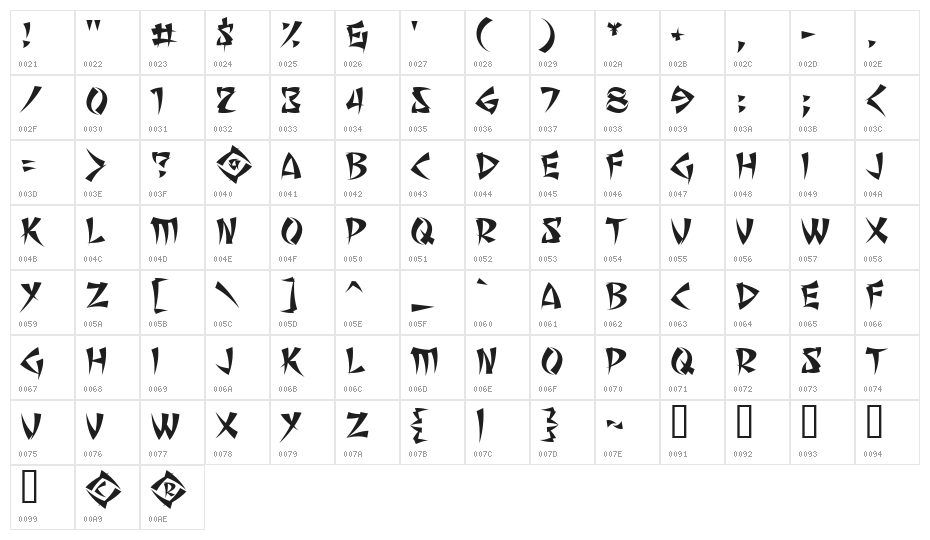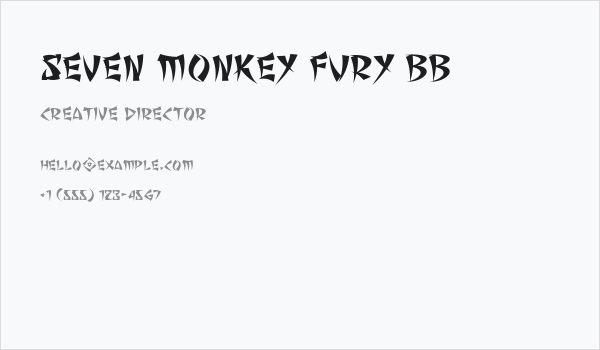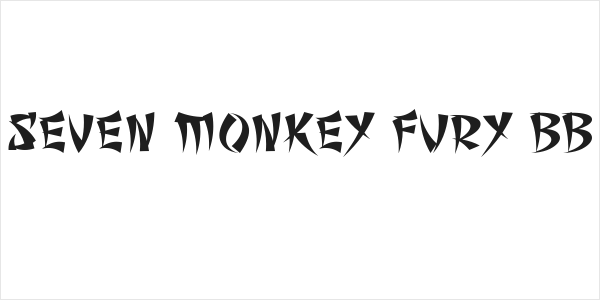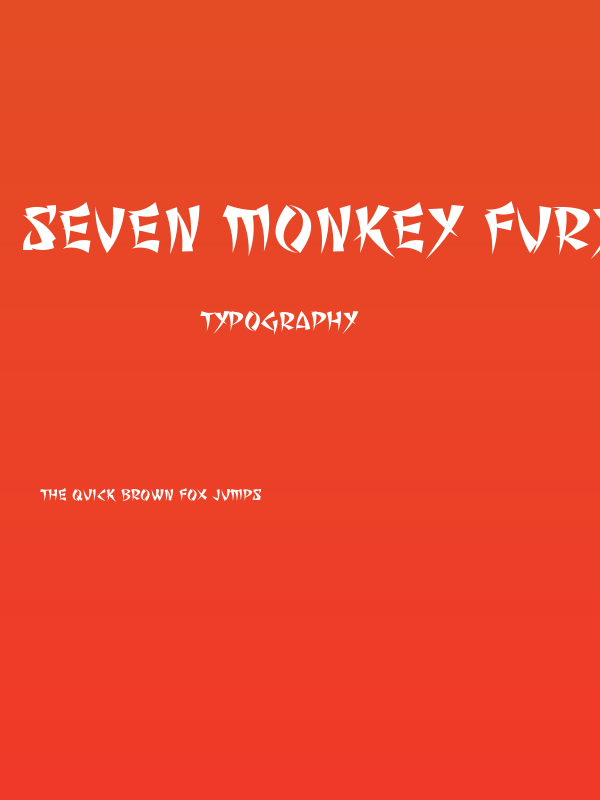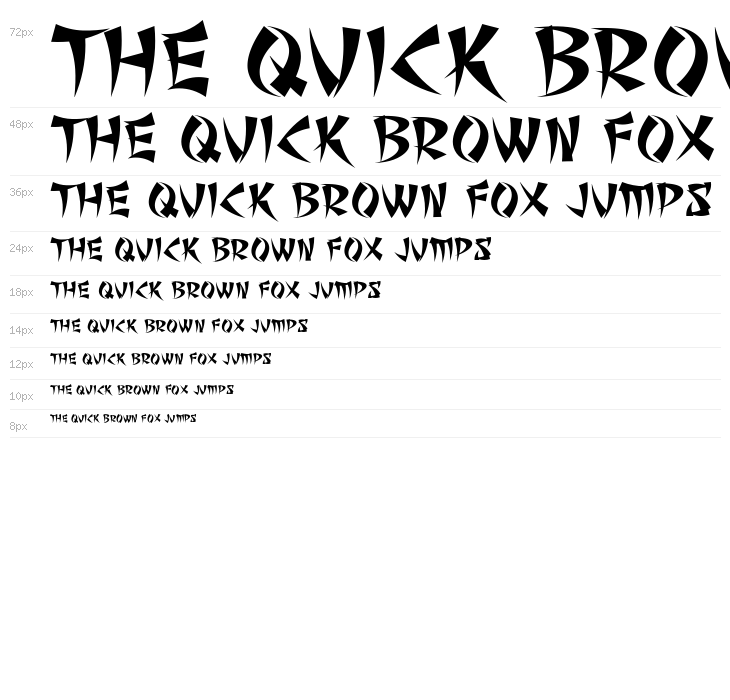
Seven Monkey Fury BB Font
Seven Monkey Fury BB Description
This font features a bold, aggressive design with sharp, angular edges and a dynamic, energetic style. The characters are highly stylized, giving off a sense of movement and intensity. The uppercase and lowercase letters maintain a consistent theme, with exaggerated points and curves that create a sense of urgency and power. The numbers and special characters follow the same design principles, ensuring a cohesive look across all elements. This font is perfect for projects that require a strong, impactful visual presence.
| Overall Style | Modern, Energetic |
| Proposed Projects | Ideal for video game titles, action movie posters, extreme sports branding, and edgy graphic design projects. |